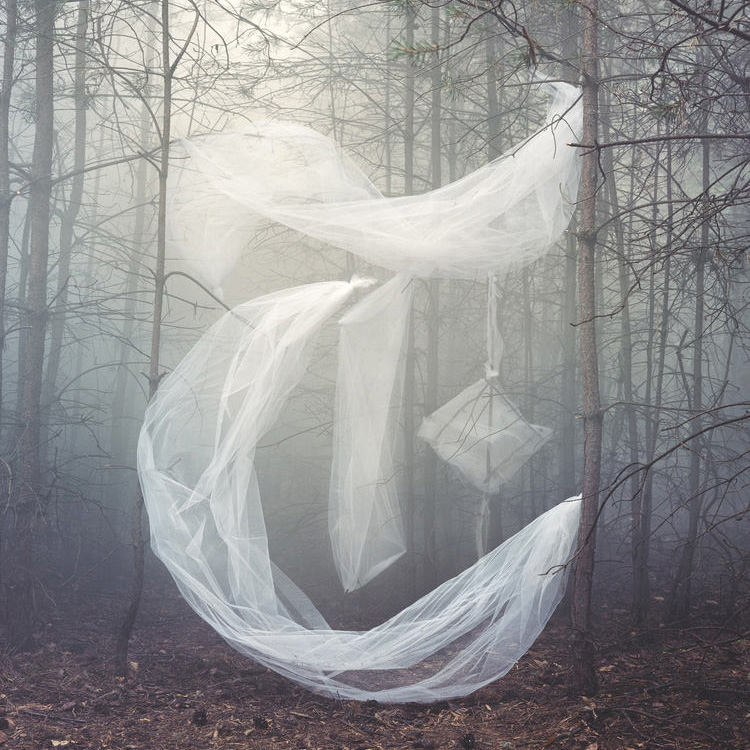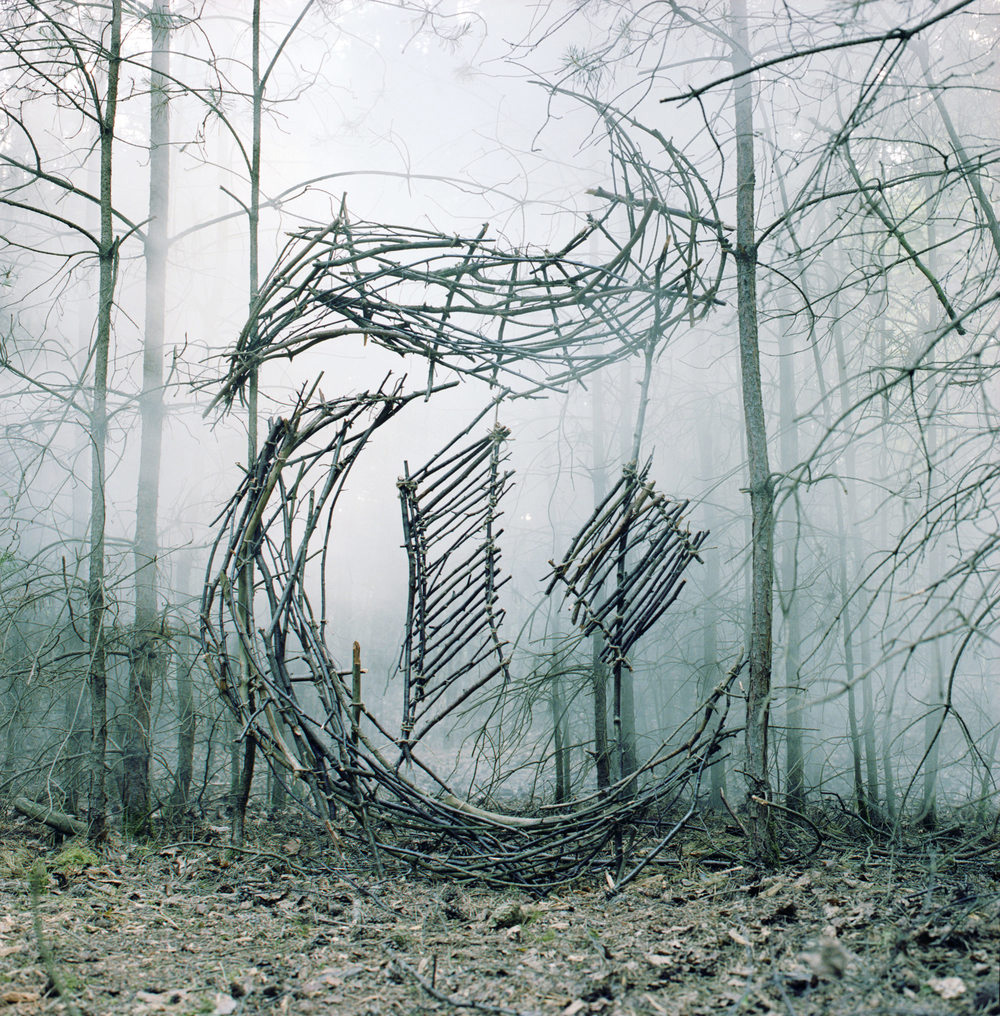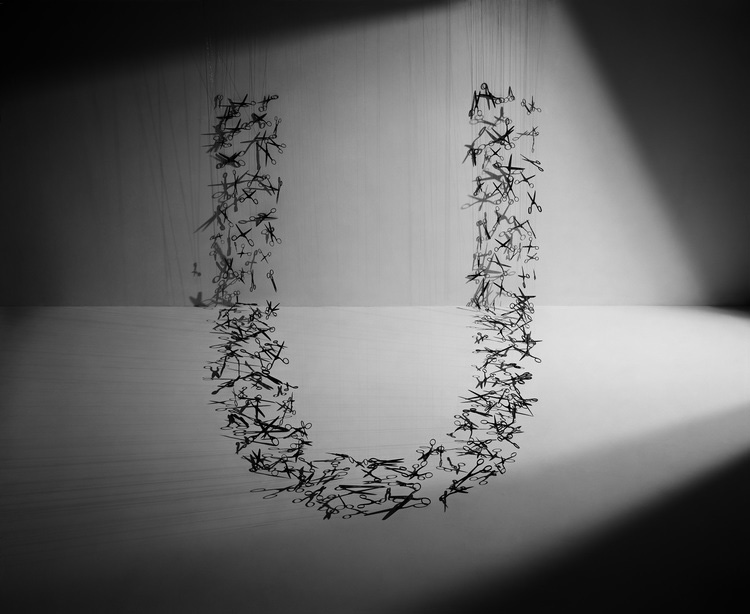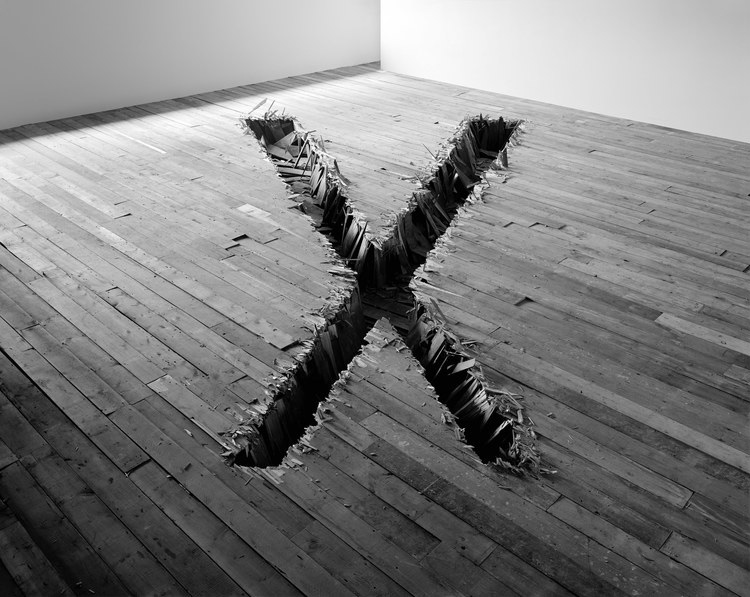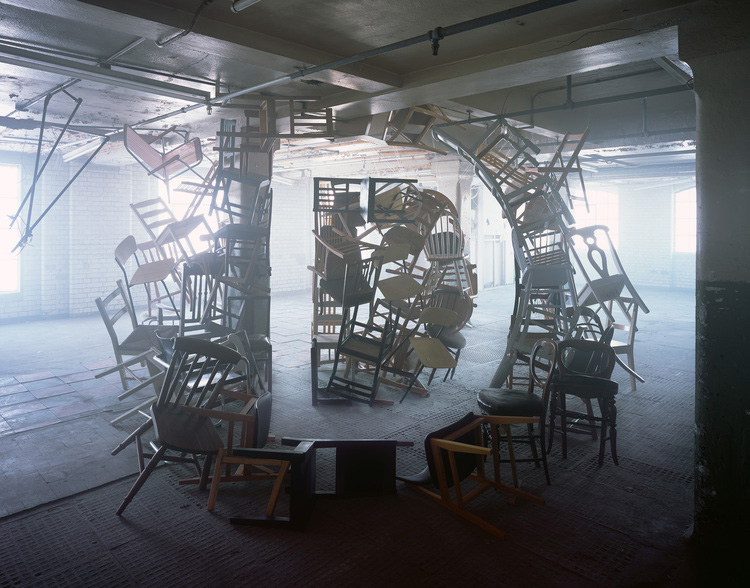
Nicola Yeoman’s hand-built typographic sculptures are for real
Nicola Yeoman’s childhood spent growing up on a farm in North Yorkshire is a big influence on her work: the dens she made in barns are still evident in her work today as she builds sets that range from elaborate interiors, to junk yard sculptures and ethereal and dreamlike worlds. Yeoman moved to London in 2001 and worked at the Guardian as a picture editor whilst studying furniture at Guildhall University. Her combined love of photography and her practical skills as a designer led to an accidental career as a set designer. Today she is an artist using a wide array of different materials as well as everyday and discarded objects to come up with installations that are pretty stunning, if not brilliant.
Whether built in trees or industrial interior spaces her work is built to specific vantage points, play with perspective and always have hidden surprises, stories and details entwined. For her ‘Circles’ series, Yeoman created several temporary installations inside an apparently abandoned industrial space, all with the basic shape of the circle as a starting point. Of a more cinematic scale is Yeoman’s ‘And Then’ series, set in a misty forest where dream-like scenes occur like twisted images out of a fantasy novel. But what really caught our attention is her letter-shaped series of works.
Yeoman’s ‘Alphabetical’ are again photographs of temporary installations: by sculpturally arranging objects such as chairs or dozens of scissors, she creates a visual illusion of the letter she wants to depict that is only visible from a specific angle. In the same vein, for the work she has produced for the New York Times, Yeoman recreated the historic newspaper’s logo using different materials and objects.
Ever since her first public art installation, entitled Home, at the 2010’s London design festival, British set designer and visual artist Nicola Yeoman proves that she is a brilliant master in creating imagery which the viewer assumes is computer generated, only to realise that in actual fact she’s built them exactly as they appear. A woman that combines typographic elements with set design and photography for hand-built sculptures, Yeoman’s work has been featured on the front covers of publications such as New York Times magazine, Wallpaper* and Vogue and she recently designed on Jay-Z’s Blueprint album cover.
Nicola currently works on a broad range of projects that include her own artwork & installations as well as still life styling and set design for both editorial and advertising campaigns in which she has collaborated with photographers including Dan Tobin Smith, Toby McFarlan Pond, Jenny Van Sommers, Mario Testino, Sam Taylor Wood, Miles Aldridge, Steve Harries, Jo Metson Scott and Kate Jackling.